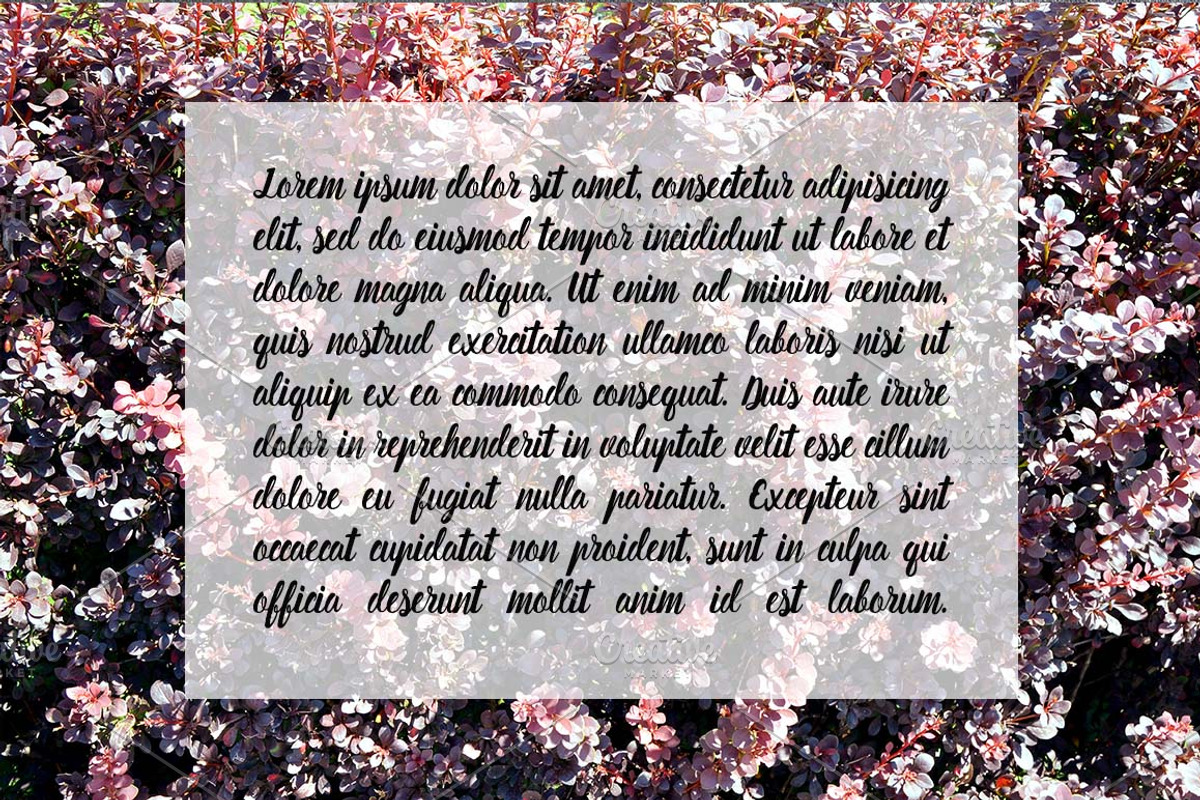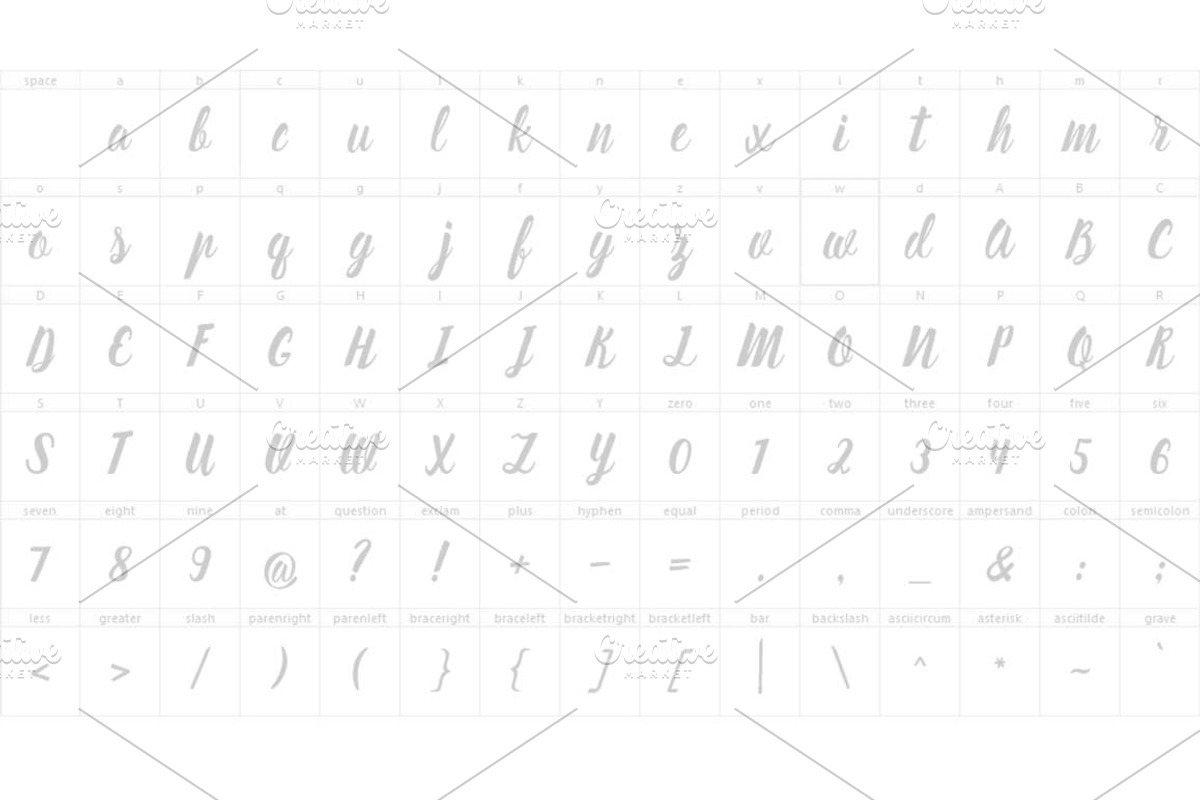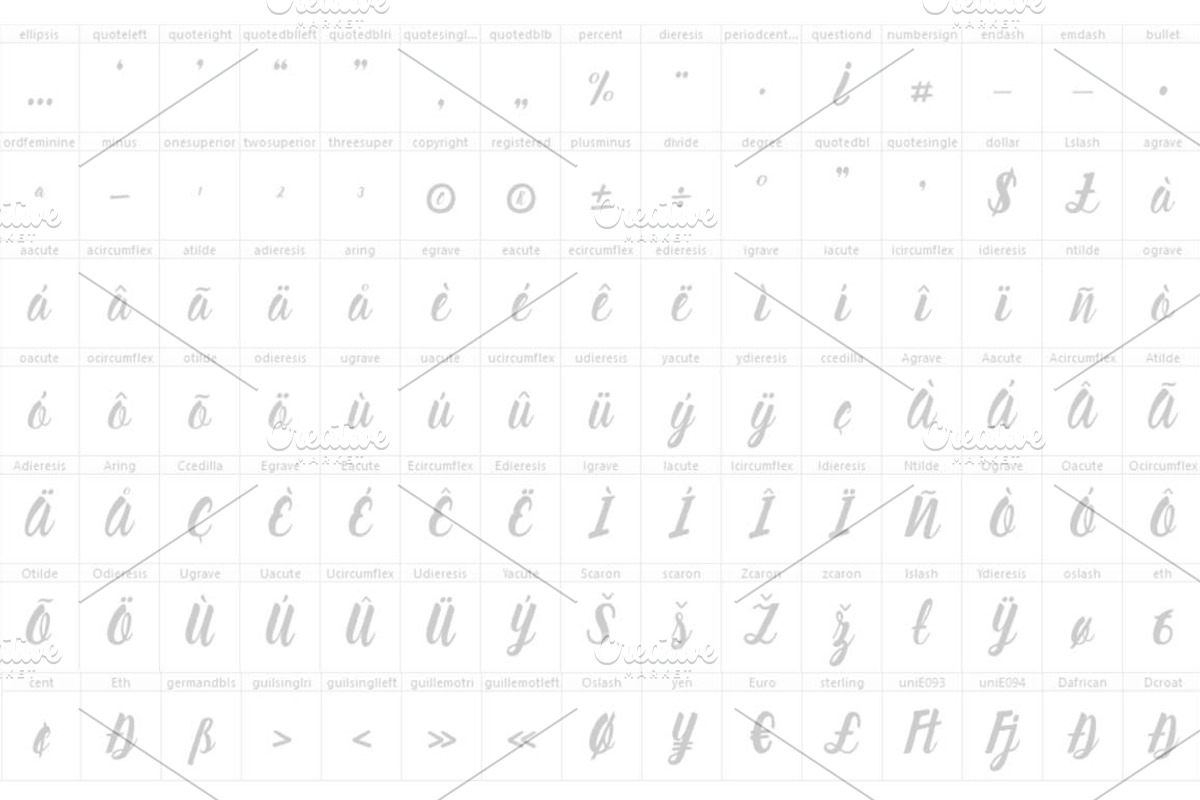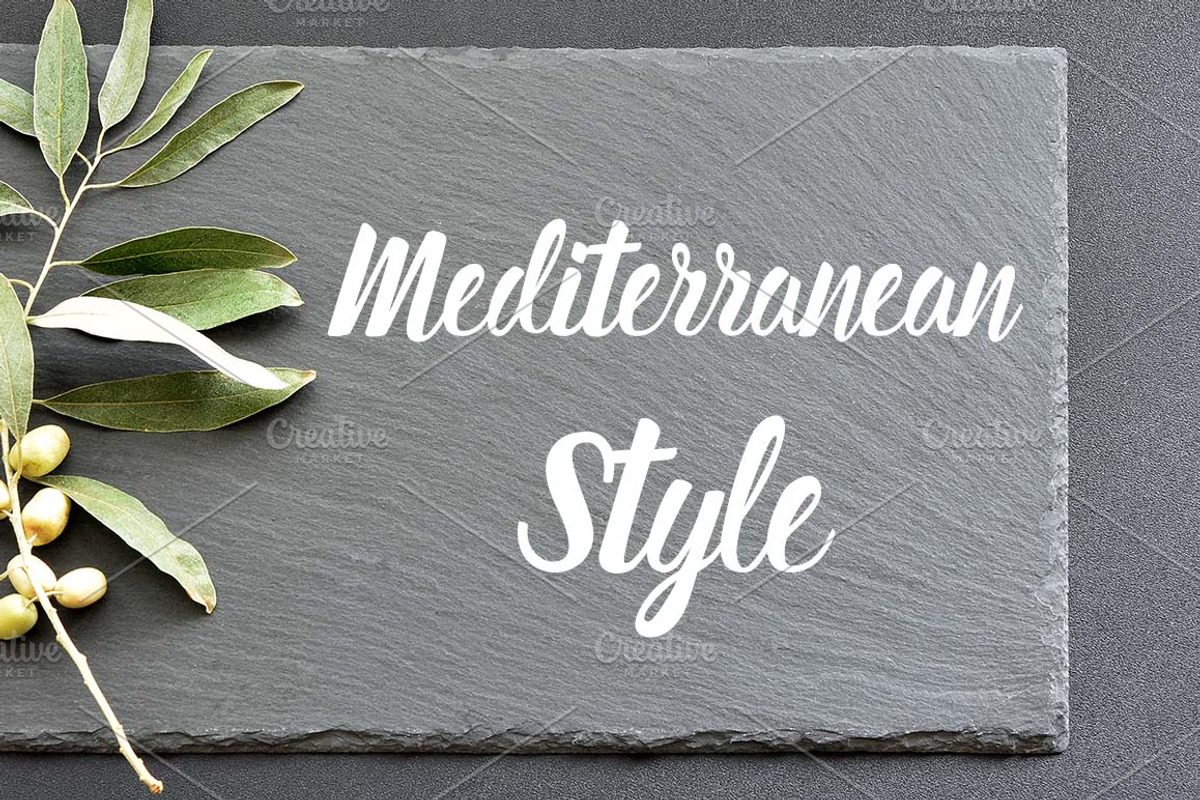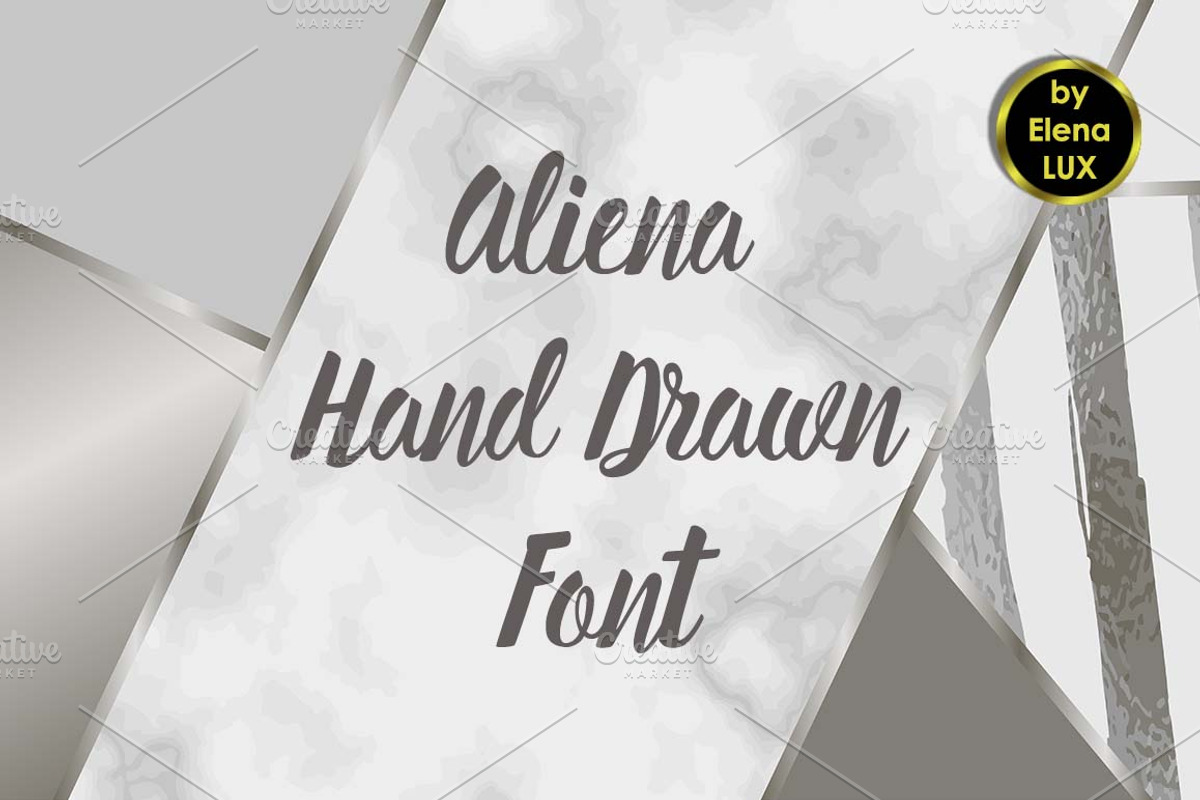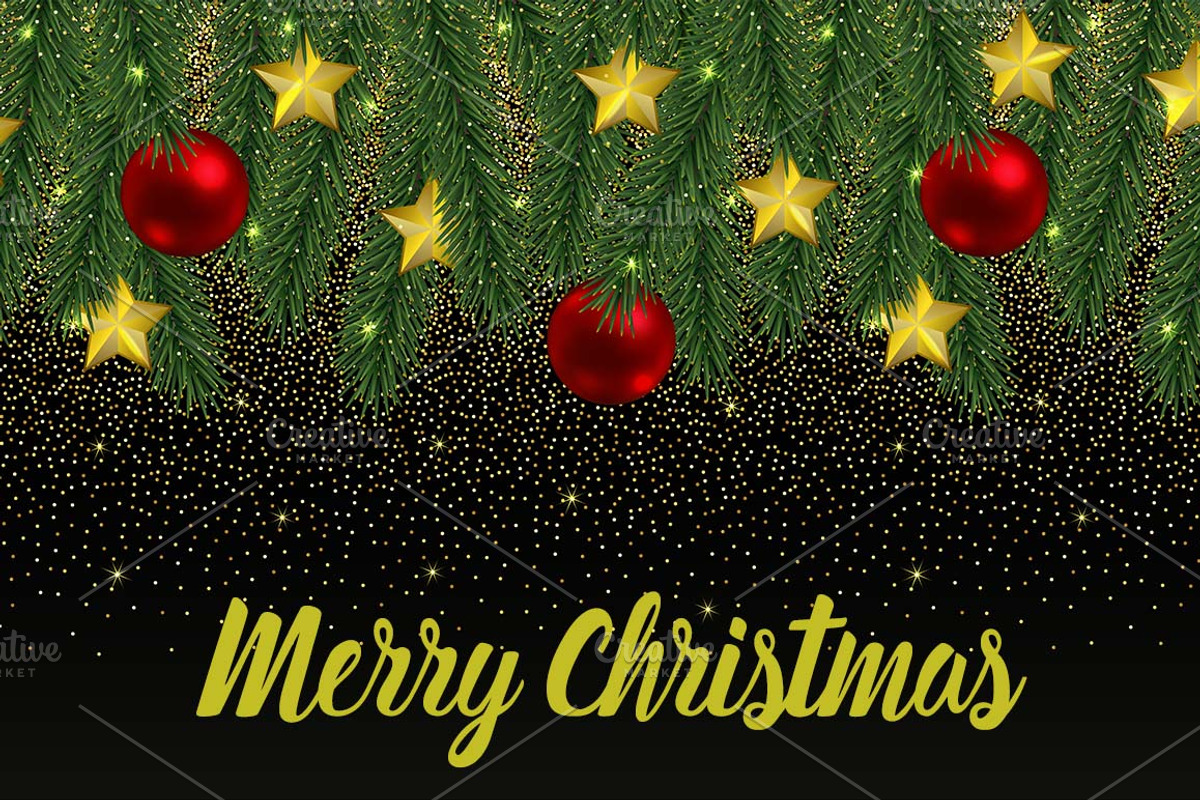
Aliena Font
Hand drawn font Aliena.
Elegant font for personalization your art works, web deisgn, textile prints, lettering.
Aliena Font by Elena Lux fits naturally into Branding, posters, packaging, typography.